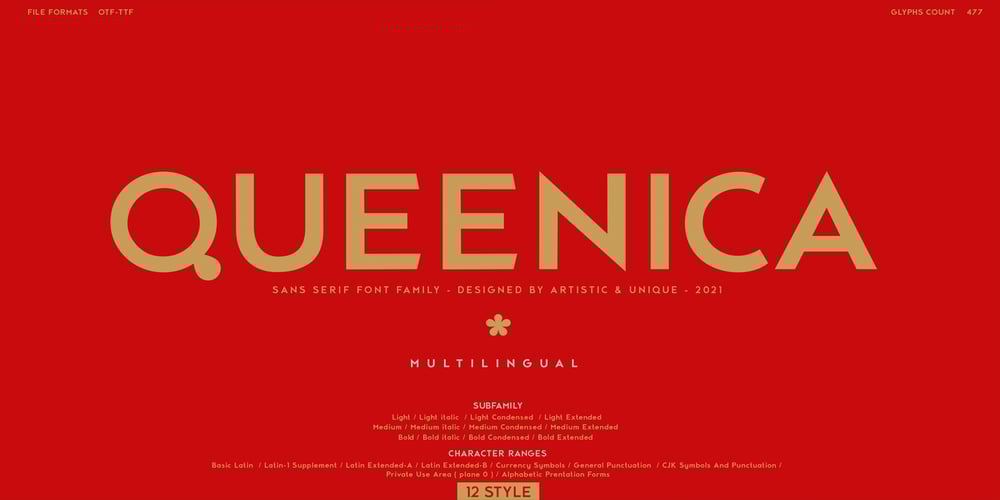
Queenica Font Family was designed by Osman Taner Kucukgenc and published by Artisticandunique. Queenica contains 12 styles and family package options. Queenica – Sans serif font family – Multilingual supports, 12 StyleIf you’re looking for a stylized sans serif font, Queenica might be the font you’re looking for with its unique structure.Queenica is a distinctive modern sans serif font. It offers rich solutions to your creative projects with its alternative versions. You can easily use the sans serif font feature in many areas. You can create your text with normal characters and highlight bold characters and titles.This font offers a wide variety of styles to help you discover the best mood for your projects, from body text to large headlines, from classic to modern and bold styles.Well suited for books and magazines, magazine covers, editorials, headlines, websites, logos, invitations, branding, advertising and more.CHARACTER RANGES : Basic Latin, Latin-1 Supplement, Latin Extended-A, Latin Extended-B, General Punctuation, Currency Symbols, CJK Symbols And Punctuation, Private Use Area (plane 0), Alphabetic Presentation Forms -Uppercase typeface-Lowercase typeface-Numbers-SymbolsWith this font you can create your unique designs.If you have a question, please contact me.Have a good time.